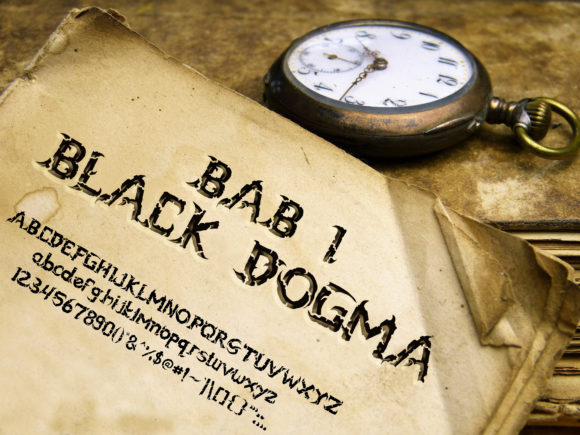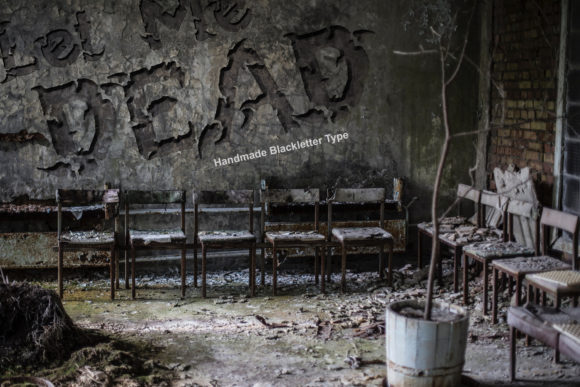
Unleash the Darkness: Exploring the Black Dogma Font
In the realm of typography, few fonts evoke the same level of mystery and intrigue as the Black Dogma font. This Gothic blackletter font has been making waves in the design community, and for good reason. With its unique touch and eerie aesthetic, Black Dogma is the perfect addition to any design that requires a creepy sensation. In this article, we’ll delve into the world of Black Dogma, exploring its features, uses, and the inspiration behind its creation.
The Birth of Black Dogma
The Black Dogma font is a relatively recent creation, designed to cater to the growing demand for unique and versatile typography. Its creator, a skilled type designer, drew inspiration from traditional Gothic blackletter fonts, infusing them with a modern twist. The result is a font that exudes an air of mystery and foreboding, perfect for designs that require a touch of darkness.
What Sets Black Dogma Apart
So, what makes Black Dogma stand out from the crowd? For starters, its Gothic blackletter design is both elegant and intimidating, lending itself perfectly to designs that require a sense of drama and flair. The font’s unique touch comes from its subtle irregularities and distinctive letterforms, which add a level of character and personality to any text.
Features of Black Dogma
Here are just a few key features that make Black Dogma a standout font:
- Gothic blackletter design: Inspired by traditional Gothic typography, Black Dogma boasts an unmistakable aesthetic that’s both elegant and eerie.
- Unique letterforms: Each letter has been carefully crafted to create a distinctive and memorable look that’s sure to leave a lasting impression.
- Subtle irregularities: A touch of imperfection adds a level of character to the font, making it feel more organic and human.
- Highly versatile: Whether you’re designing a logo, poster, or social media graphic, Black Dogma can adapt to any style or format.
Using Black Dogma in Your Designs
So, how can you incorporate Black Dogma into your designs? The possibilities are endless, but here are a few ideas to get you started:
- Horror and thriller designs: Black Dogma is a natural fit for designs that require a creepy or unsettling atmosphere, such as horror movie posters or thriller book covers.
- Gothic and occult-inspired designs: The font’s Gothic aesthetic makes it perfect for designs that explore the mysterious and unknown, such as occult-inspired logos or Gothic-themed event posters.
- Music and entertainment designs: Black Dogma’s unique touch and edgy vibe make it a great fit for music and entertainment designs, such as album covers or concert posters.
Tips for Working with Black Dogma
To get the most out of Black Dogma, here are a few tips to keep in mind:
- Experiment with font sizes: Black Dogma can be effective at a range of font sizes, from large and bold to small and subtle.
- Play with color: The font’s dark aesthetic can be paired with a range of colors to create a unique and eye-catching design.
- Mix and match with other fonts: Black Dogma can be paired with other fonts to create a striking contrast and add visual interest to your design.
| Font Name | Black Dogma Font |
| Author | ABs |
In conclusion, the Black Dogma font is a versatile and unique addition to any designer’s toolkit. Its Gothic blackletter design, subtle irregularities, and distinctive letterforms make it perfect for adding a creepy sensation to your designs. Whether you’re working on a horror movie poster, a Gothic-inspired logo, or a music album cover, Black Dogma is sure to leave a lasting impression. So why not give it a try and unleash the darkness in your designs?